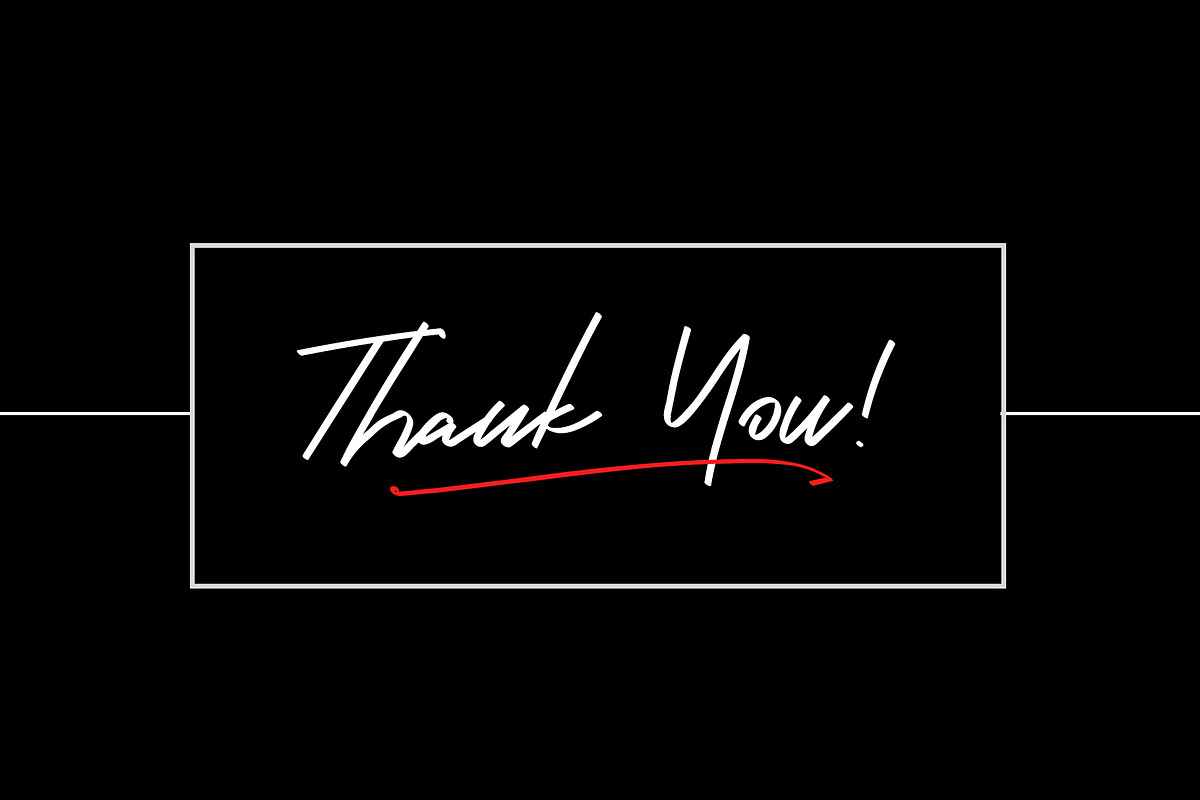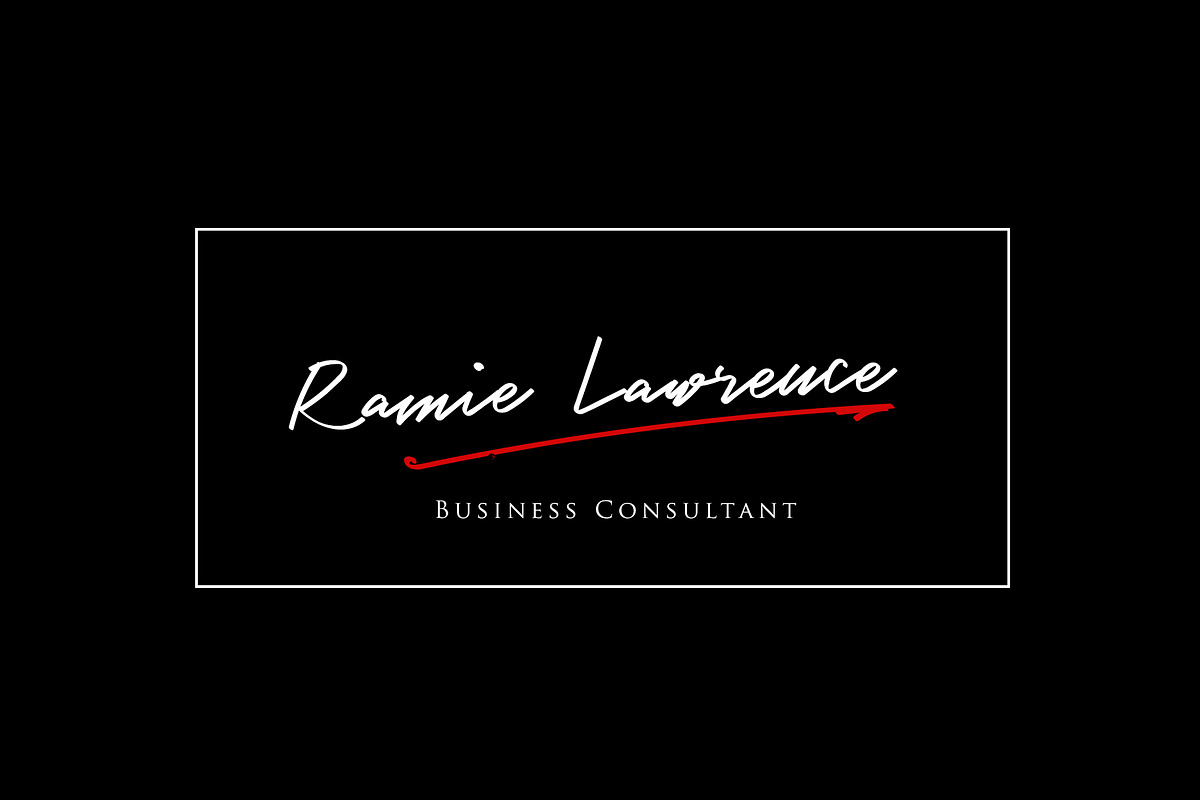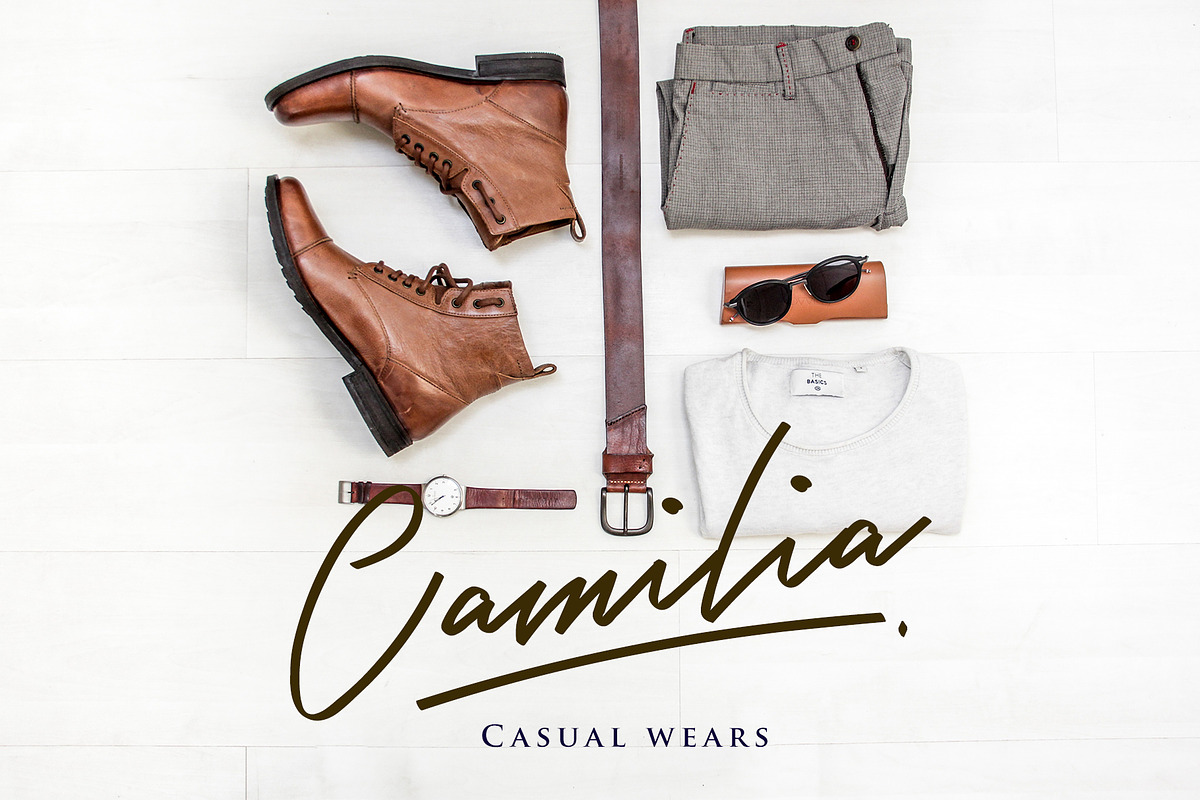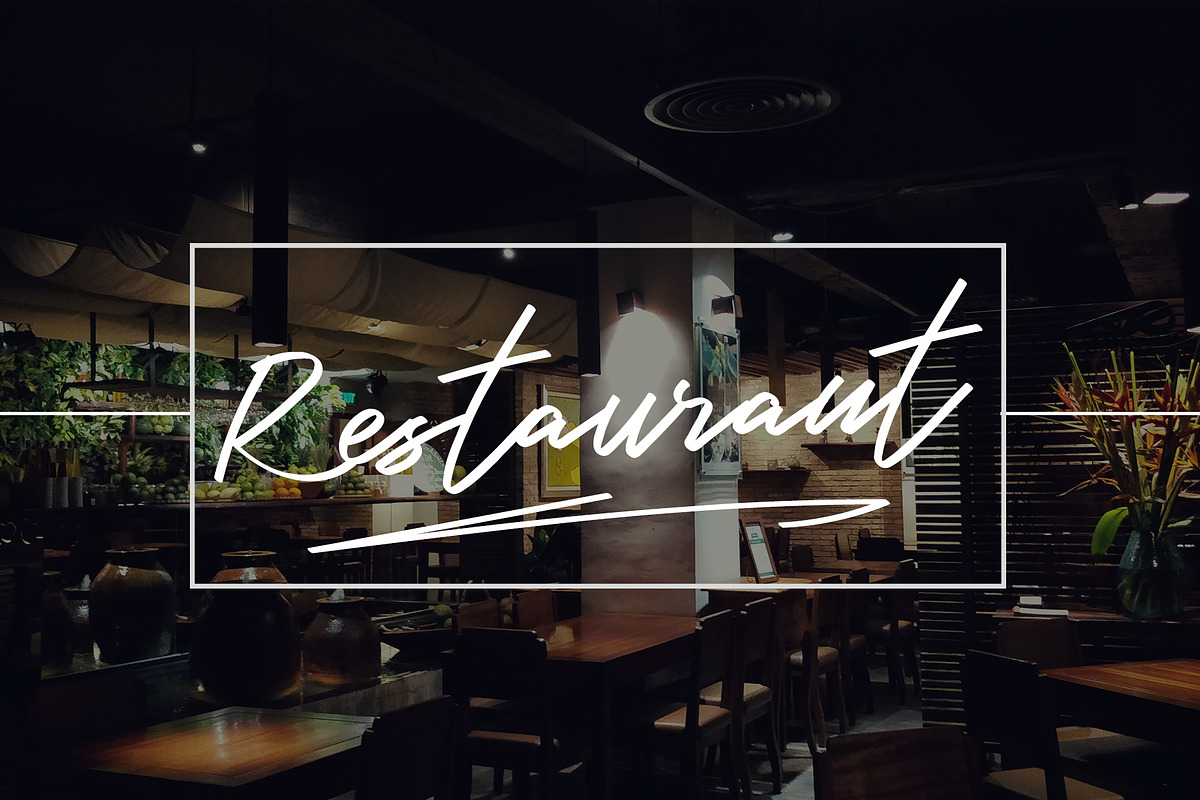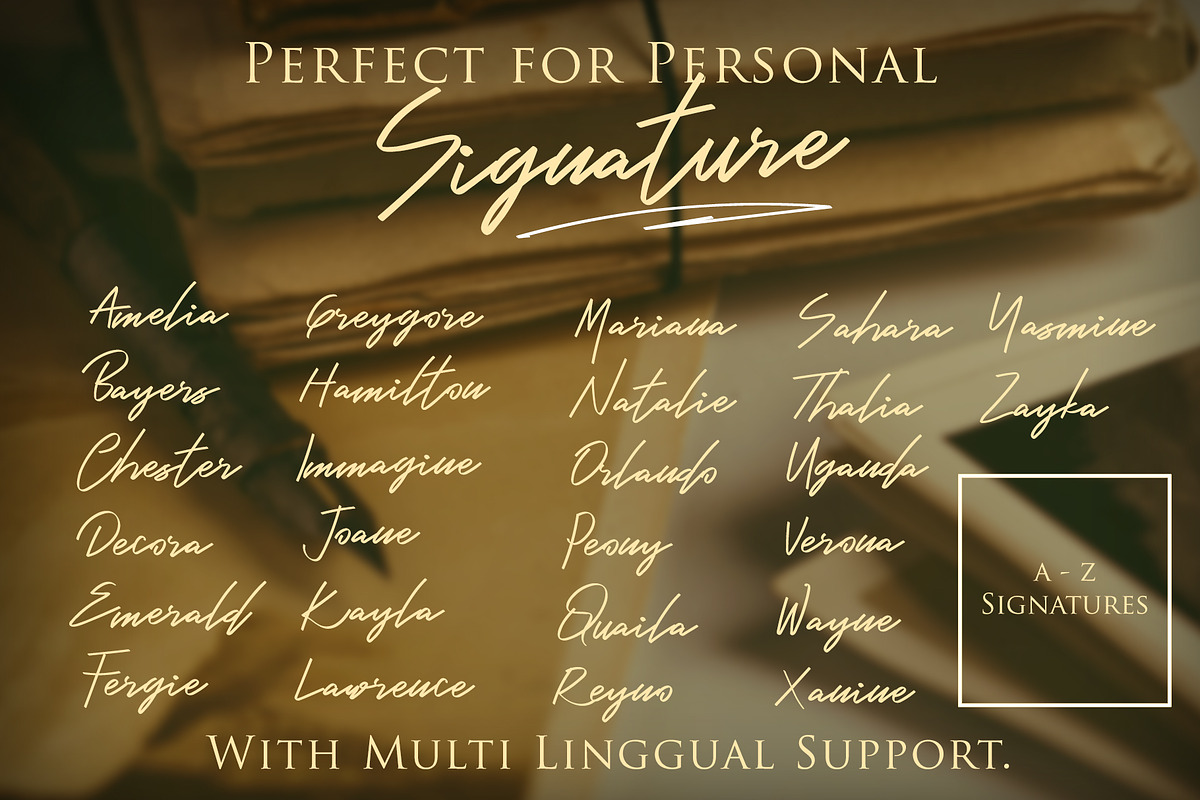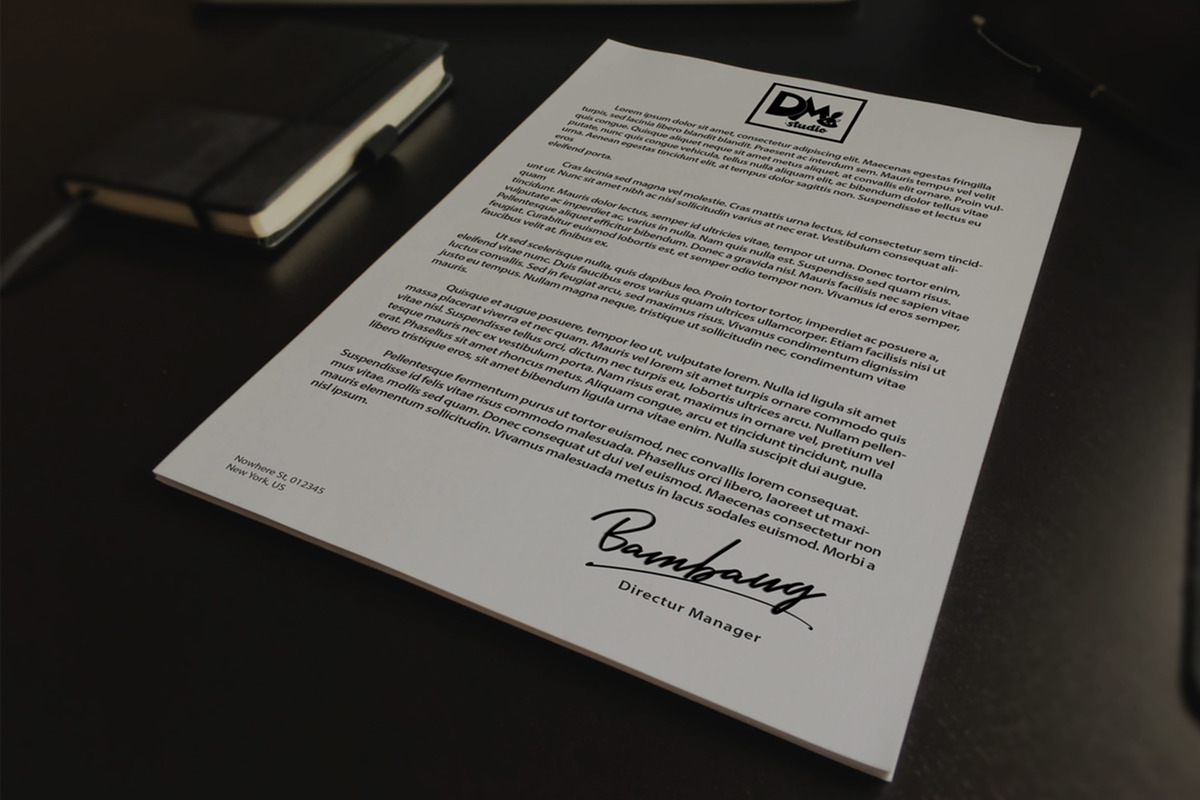
Bambang - Signature Font
Introducing, Bambang Signature Font ! Inspired by Javanese old people's Name, which means "Soldier" or "Warrior". Old people usually used this style to wrote their name or letters. It has a "manly", bold and strong character handwritten style. Will looks great for your letter, name card, branding or tagline in your product design.
Standard Characters (Uppercase and lowercase)
Extra 26 Swashes Line
Bambang - Signature Font by Dm Studio fits naturally into Branding, posters, packaging, typography.